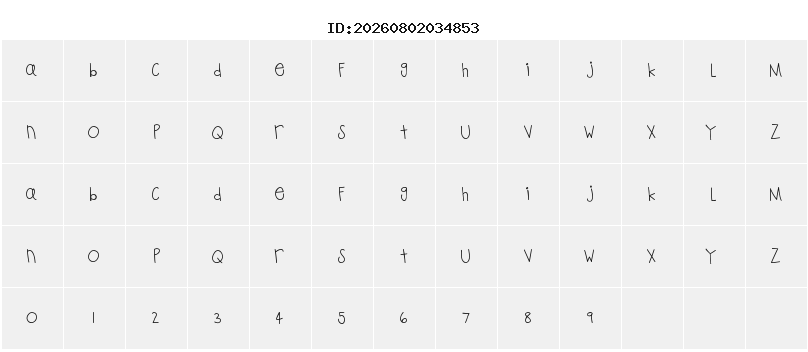
MTF Playtime Preview
• Font Name: MTF Playtime
• Full Font Name: MTF Playtime
• Designer: Tina Raparanta a.k.a. MissTiina
About MTF Playtime.ttf
MTF Playtime.ttf is a modern, elegant sans-serif font designed for ultimate readability and visual harmony. Perfect for branding, headlines, web design, and print materials.